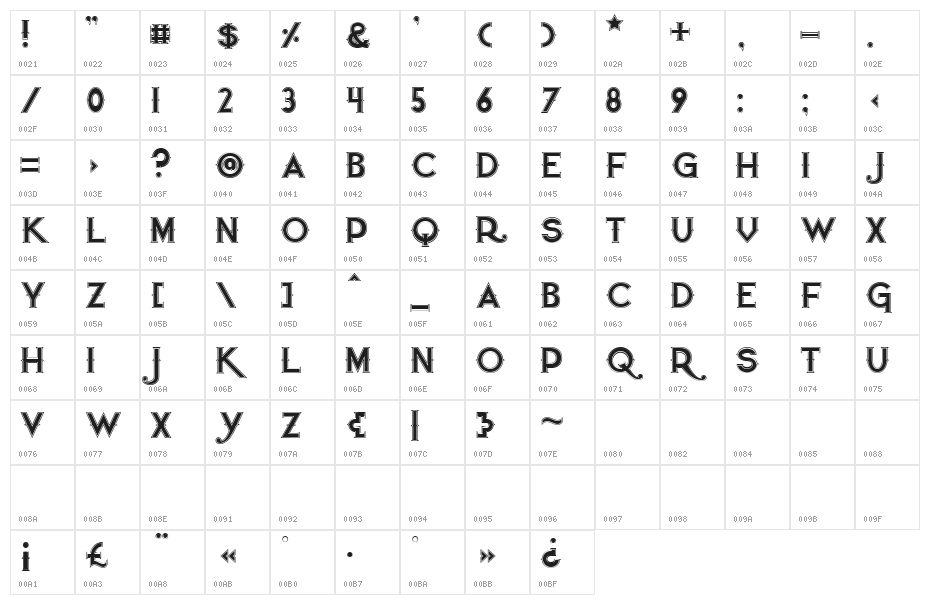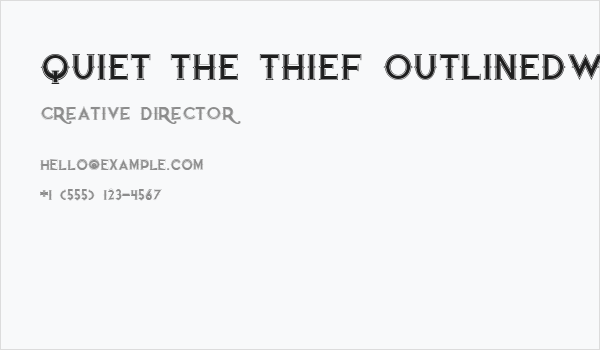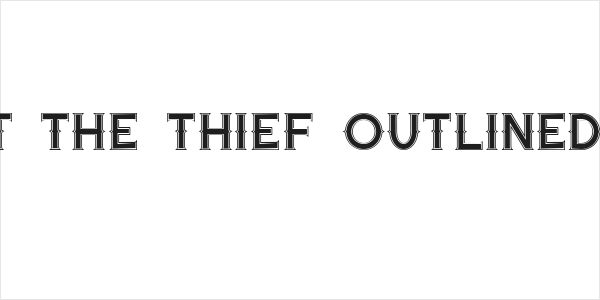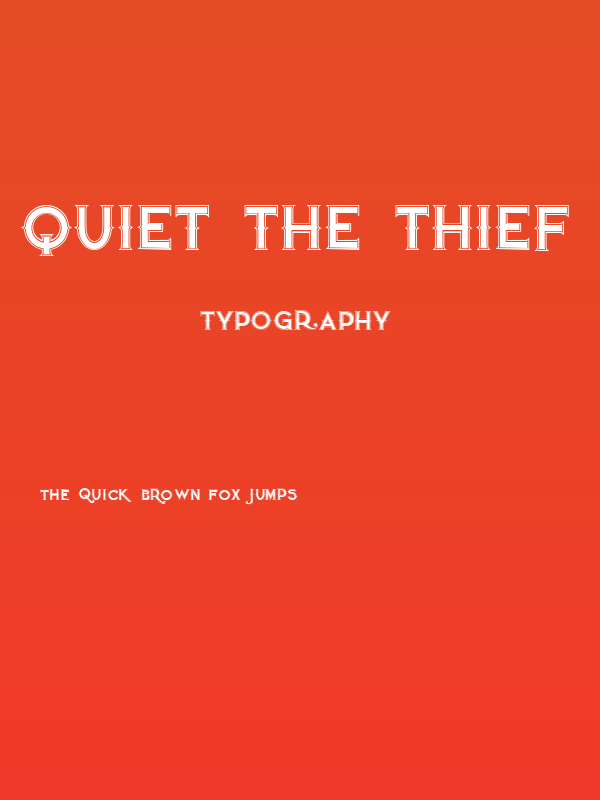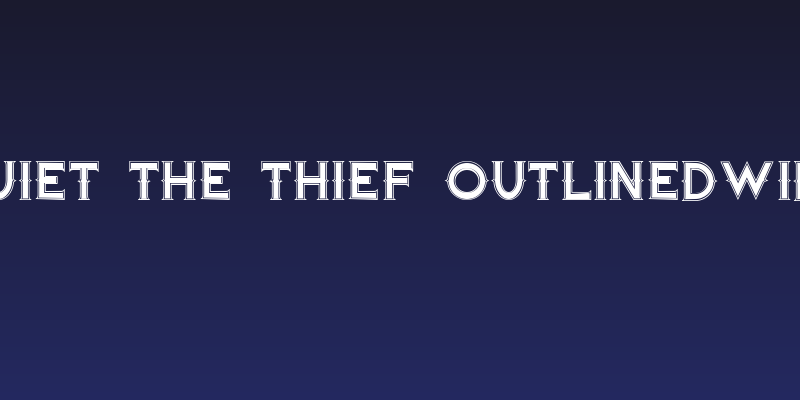
Quiet the Thief OutlinedWide Font
Quiet the Thief OutlinedWide Description
This font features a bold, outlined style with a distinct, wide appearance. The characters are designed with a decorative flair, incorporating sharp angles and unique serifs that give it a modern yet vintage feel. The uppercase and lowercase letters maintain a consistent design, with the uppercase being slightly more pronounced. Numbers and special characters are equally stylized, ensuring a cohesive look across all glyphs. The font's bold outlines and wide spacing make it stand out, ideal for attention-grabbing headlines or logos.
| Overall Style | Modern, Vintage |
| Proposed Projects | Ideal for branding, poster designs, and headlines that require a bold, eye-catching typeface. |